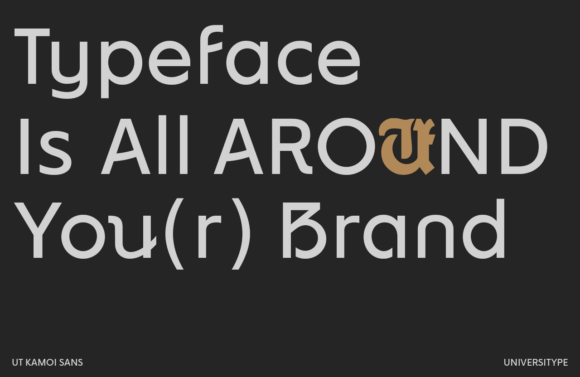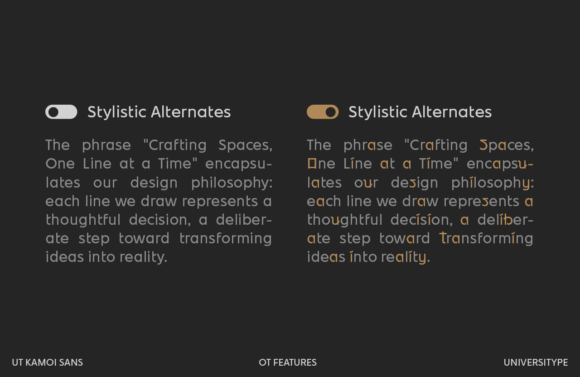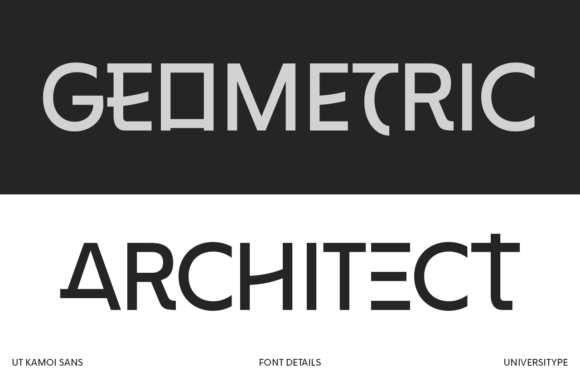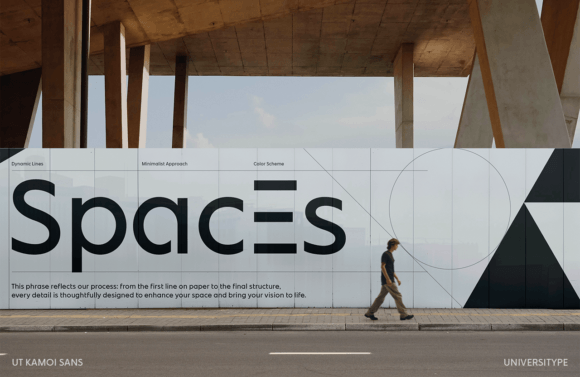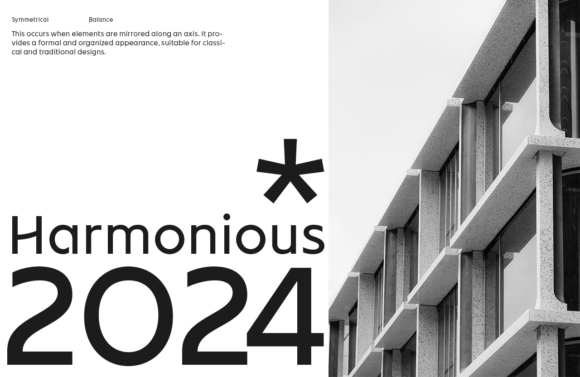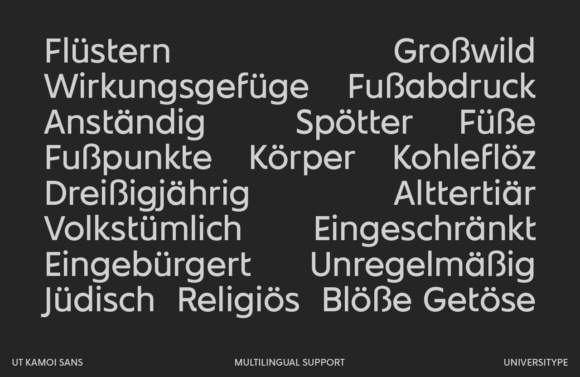
Discovering the Perfect Harmony: A Designer’s Journey with Kamoi Sans Font
Have you ever found yourself stuck in front of a blank canvas, searching for the perfect font to bring your design to life? That’s exactly where I was, until I stumbled upon the elegant Kamoi Sans Font. This typeface has been a game-changer for me, and I’m excited to share its story with you.
Kamoi Sans Font is a beautifully crafted font that seamlessly blends traditional Japanese artistry with modern precision. Its unique design makes it a versatile choice for designers across various industries, from architecture to fashion and technology. The font’s sophistication and elegance are perfect for creating visually stunning designs that stand out from the crowd.
Kamoi Sans Font Key Features
- Font Family: Kamoi Sans
- Font Style: Sans-serif, Modern
- Character Count: Approximately 800 characters, including letters, numbers, punctuation, and symbols
Kamoi Sans Font Review
Overall, I think Kamoi Sans is a solid font choice, but it’s not without its quirks. Let’s start with what works well. ✨ One of the standout features of Kamoi Sans is its clean and modern aesthetic. It’s perfect for digital designs where you need a clear and readable font. Additionally, it has a nice balance of x-height and cap height, making it suitable for both body text and headings.
Another plus is its wide range of language support. This font is suitable for a variety of applications, from web design to print media.
What I Like: ✨
- Modern and clean aesthetic
- Good balance of x-height and cap height
- Wide range of language support
- The font can feel a bit too plain in some cases, lacking personality
- Some users may find it too similar to other modern sans-serif fonts
Overall, I’d say Kamoi Sans is a good choice for designers looking for a clean and readable font. However, it may not be the best fit for projects that require a lot of personality or uniqueness.
Kamoi Sans is ideal for modern branding, packaging design, and digital products. Use it for titles, headings, and body text to create a cohesive and clean look. Experiment with different font sizes and styles to add visual interest. Consider pairing Kamoi Sans with bold graphics or minimalist illustrations to create a striking visual effect.
Montserrat is a sans-serif font designed by Julieta Ulanovsky. It is highly legible and works well in a variety of digital media. Montserrat is ideal for use in websites, apps,
Yes, Kamoi Sans Font is designed to be highly customizable. You can adjust font size, line height, letter spacing, and other parameters to suit your design needs. Additionally, the font supports various OpenType features, such as ligatures, stylistic sets, and swashes, which can be used to create unique and visually appealing designs.